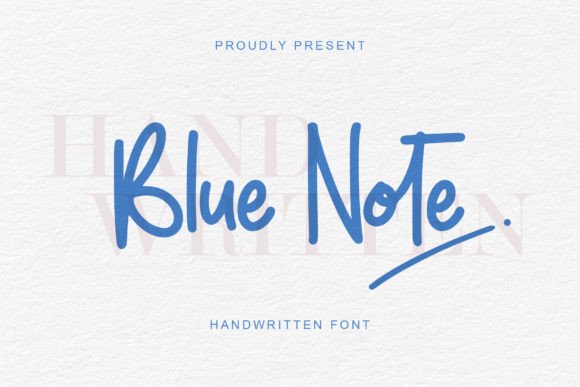
Introducing Blue Note Font: The Ultimate Handwritten Font for All Occasions
Are you tired of using the same old fonts for your digital designs, presentations, and greeting cards? Look no further than Blue Note Font, a simple and neat handwritten font that is sure to become your new favorite. In this article, we’ll take a closer look at the Blue Note Font, its features, and how it can elevate your designs to the next level.
What is Blue Note Font?
Blue Note Font is a beautiful, handwritten font that is perfect for a variety of design projects. Whether you’re a crafty person, a digital designer, or someone who loves making greeting cards, this font is sure to impress. Its simplicity and neatness make it easy to read and versatile enough to use in a variety of contexts.
Key Features of Blue Note Font
- Handwritten style: Blue Note Font has a warm, personal touch that is perfect for creating handmade-style designs.
- Simple and neat: The font is easy to read and understand, making it perfect for body text and headings.
- Versatile: Blue Note Font can be used for a variety of design projects, from digital designs to presentations and greeting cards.
Benefits of Using Blue Note Font
So why should you choose Blue Note Font for your design projects? Here are just a few benefits of using this amazing font:
- Adds a personal touch: Blue Note Font adds a warm, personal touch to your designs, making them stand out from the crowd.
- Improves readability: The font’s simplicity and neatness make it easy to read, even for long blocks of text.
- Increases versatility: Blue Note Font can be used for a variety of design projects, making it a great addition to your font library.
- Easy to pair with other fonts: The font pairs well with other fonts, making it easy to create beautiful, cohesive designs.
Design Ideas Using Blue Note Font
Blue Note Font is a versatile font that can be used for a variety of design projects. Here are a few ideas to get you started:
- Greeting cards: Use Blue Note Font to create beautiful, handmade-style greeting cards for special occasions.
- Digital designs: Use the font to create stunning digital designs, such as social media graphics and blog posts.
- Presentations: Add a personal touch to your presentations with Blue Note Font.
- Crafts: Use the font to create handmade crafts, such as scrapbooking and DIY projects.
Tips and Tricks for Using Blue Note Font
Here are a few tips and tricks to help you get the most out of Blue Note Font:
- Experiment with font sizes: Try using different font sizes to add visual interest to your designs.
- Pair with other fonts: Experiment with pairing Blue Note Font with other fonts to create beautiful, cohesive designs.
- Use for body text and headings: Use Blue Note Font for both body text and headings to create a cohesive look.